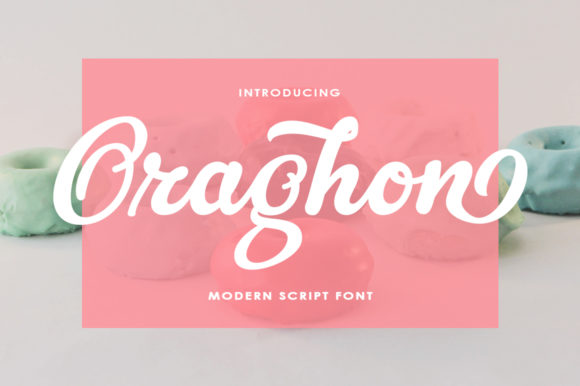
Oraghon Font: The Epitome of Elegance and Style for Your Creative Endeavors
Unleash the boundless beauty of your imagination with Oraghon Font, a handcrafted masterpiece that exudes elegance and sophistication. Created with the utmost care and precision, Oraghon is a script font that will elevate your designs to new heights.
Immerse yourself in a world of creativity with Oraghon, a font that beautifully captures the essence of handwritten artistry. Its smooth lines and graceful curves evoke a sense of timeless charm that will captivate your audience. From elegant wedding invitations to captivating social media posts, Oraghon will transform your words into breathtaking works of art.
With Oraghon at your fingertips, you'll discover a treasure trove of possibilities. Its versatility knows no bounds, making it the perfect choice for a multitude of projects. Whether you're designing logos, branding materials, or simply adding a touch of flair to your personal projects, Oraghon will add a touch of sophistication and refinement.
But what truly sets Oraghon apart is its PUA encoding, a feature that opens up a world of creative opportunities. With ease, you can access a stunning array of glyphs and swashes, allowing you to add intricate details and flourishes to your designs. Unleash your creativity and let your imagination soar as you explore the endless possibilities that Oraghon has to offer.
Step into the realm of creative expression with Oraghon Font. Its captivating style will ignite your passion for design, transforming your ideas into stunning visual masterpieces. So, embrace the beauty of Oraghon and embark on a creative journey that will leave your audience spellbound.